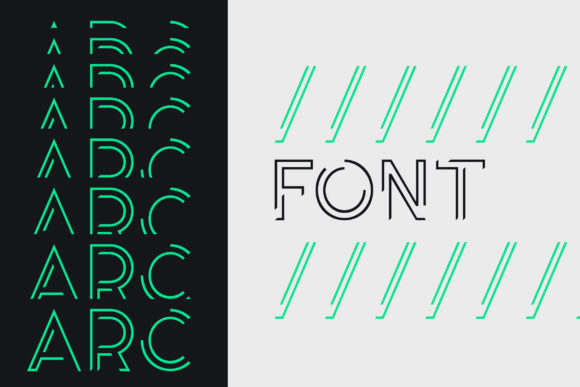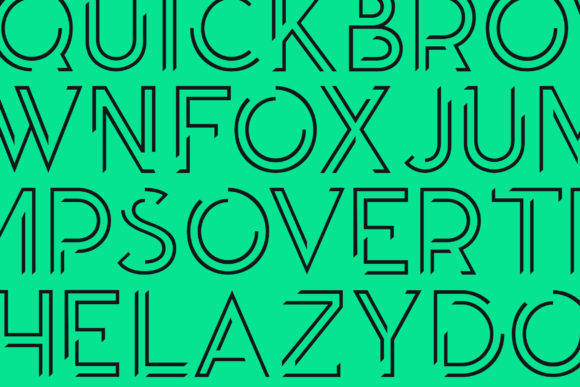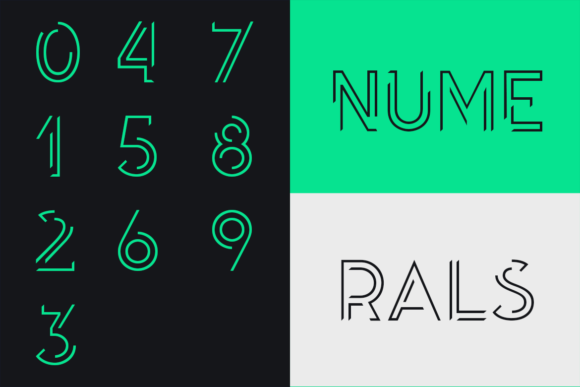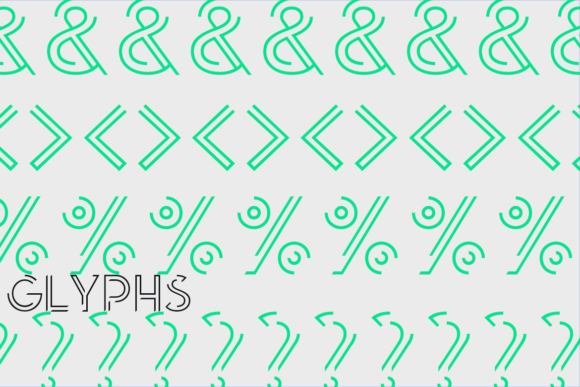
HomePersonal Use FreeArc Personal Use Free Arc FacebookTwitterPinterestWhatsApp 1 of 5 About Arc Font Arc is an incredibly unique display font. Masterfully designed to become a true favorite, this font has the potential to bring each of your creative ideas to the highest level! DOWNLOAD NOW People also explored Jack and Zeky Font Cooperative Font Topone Font The Crispy Brownies Font Outlined Font Manita Beckon Font Everbest Font Promise of Love Font 192 0 TagsAloha March FontJoan of Arc Font Previous articleNottingsamNext articleRakesly LEAVE A REPLY Cancel reply Comment: Please enter your comment! Name:* Please enter your name here Email:* You have entered an incorrect email address! Please enter your email address here Website: Save my name, email, and website in this browser for the next time I comment. Personal Use Free Talking on Personal Use Free Read more about this font Senza Bella Personal Use Free Read more about this font Foo Personal Use Free Read more about this font Straighler Personal Use Free Read more about this font BLOG Free Fonts Risk: Why Free Fonts Can Be Dangerous for Designers Free Fonts Risk: Why Free Fonts Can Be Dangerous for Designers Using free fonts is a common practice in web and graphic design. However, the... Best Fonts for YouTube Videos: Make Your Thumbnails Stand Out Top 7 Google Fonts Alternatives for Faster and Privacy-Friendly Web Design (2025) Best Fonts for T-Shirt Design – Top 2025 Picks